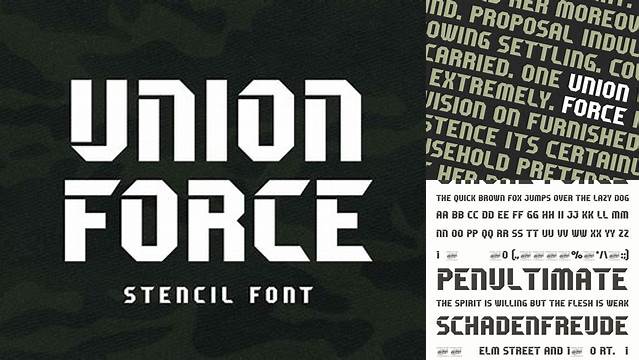
Unpacking the Union Force Stencil Font: What's the Hype?
Alright guys, let's dive into the Union Force stencil font! You've probably seen it around, maybe on posters, edgy graphics, or even some cool apparel. It's got this rugged, industrial vibe that's super distinctive. Think old-school military stencils, but with a modern twist. This font isn't just about looking cool; it's about conveying a message of strength, resilience, and a no-nonsense attitude. When you're looking for a typeface that screams boldness and commands attention, the Union Force stencil font is definitely one to consider. Its sharp edges and utilitarian design make it stand out from the softer, more commonplace fonts you see every day. It’s the kind of font that adds instant character and a story to whatever you're working on. We're talking about a font that's not afraid to make a statement, perfect for projects that need that extra edge. It's versatile enough for a range of applications, from graphic design and branding to creating impactful headlines and even video titles. The beauty of this font lies in its raw authenticity, evoking a sense of urgency and power that's hard to replicate with other styles.
Why is the Union Force Stencil Font So Popular in Design?
The popularity of the Union Force stencil font isn't accidental, guys. It taps into a specific aesthetic that resonates with many people. Stencil fonts, in general, have a rich history, harking back to industrial applications where they were literally cut out to mark crates, equipment, and military vehicles. This heritage lends the Union Force font a sense of authenticity and ruggedness. In graphic design, this translates to a powerful visual language. It's often used to convey themes of strength, durability, rebellion, or a raw, urban feel. Think movie posters for action films, band logos for rock or punk bands, or branding for companies that want to project an image of toughness and reliability. The slightly distressed or imperfect nature often found in stencil fonts adds a unique texture that digital fonts can sometimes struggle to replicate. This font isn't just a collection of letters; it's a mood, a vibe, a statement. Its bold strokes and distinct cutouts make it incredibly legible even at smaller sizes when used for headings or captions, ensuring your message gets across clearly and impactfully. It’s a go-to for designers looking to add a gritty, masculine, or industrial edge to their work, providing a stark contrast to more elegant or minimalist typefaces. The immediate recognition and association with strength make it a powerful tool in a designer's arsenal, helping to create memorable and visually striking designs.
Using Union Force Stencil Font for a Bold Statement
When you want to make a truly bold statement, the Union Force stencil font is your best friend. This isn't the font you'd use for a wedding invitation, but for anything that needs to grab attention and exude confidence, it's perfect. Imagine using it for a gym's branding – it screams power and dedication. Or perhaps for a craft brewery that wants to project a robust, no-frills image. It excels in headline text, posters, flyers, and even large-format graphics where its stencil characteristics can be fully appreciated. The key is to use it strategically. A little of this font goes a long way. Overusing it can make a design feel too aggressive or cluttered. Consider pairing it with a simpler, cleaner font for body text to create contrast and allow the Union Force stencil font to shine in its intended role as an attention-grabber. Experiment with different weights and styles if the font family offers them. Sometimes, a slightly condensed version or a bolder weight can amplify its impact even further. Don't be afraid to play with distressed textures or overlay effects to enhance its rugged feel. Ultimately, using this font is about making a deliberate choice to inject personality and power into your visuals, ensuring your message is not just seen, but felt.
Exploring Alternatives to Union Force Stencil Font
While the Union Force stencil font is awesome, sometimes you might need to explore other options, or maybe you just want to see what else is out there. The world of stencil fonts is vast, guys! If you're looking for something with a similar vibe but a slightly different flavor, consider fonts like "Stencilia," "Army stencil," or even some of the more industrial-looking fonts from type foundries that specialize in distressed or grunge aesthetics. Many designers create their own unique stencil interpretations, so browsing sites like Behance or Dribbble can reveal hidden gems. If you need something that's a bit more modern but still carries that stencil DNA, look for cleaner, geometric stencil fonts. Conversely, if you want something even more weathered and grungy, seek out fonts with heavy textures and imperfections. The key is to understand what specific characteristic of the Union Force stencil font appeals to you most – is it the sharp edges, the stencil cutouts, the industrial feel, or the bold weight? – and then search for fonts that emphasize those particular traits. Don't limit yourself; exploring alternatives can lead you to discover new favorite typefaces and keep your design portfolio fresh and exciting. Each font has its own personality, and finding the right one is all about matching that personality to the message you want to convey. Sometimes a subtle difference can make a huge impact on the overall feel of your design.
Tips for Integrating Union Force Stencil Font into Your Designs
Integrating the Union Force stencil font effectively into your designs is all about balance and purpose. This font has a strong personality, so it needs to be handled with care. First, know your audience and your message. Is the rugged, industrial feel appropriate? If yes, then proceed! Second, use it strategically. It's often best employed for headlines, titles, or key call-to-action elements. Think of it as the accent nail of typography – powerful and attention-grabbing, but not the whole manicure. Third, create contrast. Pair the Union Force stencil font with a more subdued, legible font for body copy. A clean sans-serif or a simple serif can provide a nice counterpoint, allowing the stencil font to stand out without overwhelming the reader. Fourth, consider the context. Where will this design be seen? On a screen? Printed large? For digital use, ensure the font renders well at the required sizes. For print, especially large formats, its stencil nature can really shine. Fifth, experiment with effects. Sometimes adding a subtle grunge texture or a slight distortion can enhance the font's inherent character. However, avoid overdoing it; the goal is to complement, not to obscure. Remember, the Union Force stencil font is a tool to enhance your message, not define it entirely. Use its power wisely, and it will serve your design incredibly well, adding that distinctive edge you're looking for. It’s about making thoughtful choices that elevate your overall visual communication.
The Impact of Stencil Typography on Brand Identity
When we talk about the Union Force stencil font, we're not just talking about letters; we're talking about impact on brand identity. Brands that opt for a stencil typeface often want to communicate something specific: strength, resilience, a utilitarian approach, or a connection to industrial or military heritage. Think about brands in the automotive, construction, or extreme sports industries. Using a font like Union Force can instantly signal toughness and durability, creating a powerful first impression. It suggests that the brand is no-nonsense, built to last, and perhaps even a bit rebellious. This kind of distinctive typography can become a cornerstone of a brand's visual identity, making it instantly recognizable. However, it's crucial that this choice aligns with the brand's core values and target audience. A luxury fashion brand, for instance, would likely find a stencil font jarring unless there's a very specific, avant-garde concept behind it. For the right brand, however, it’s a fantastic way to carve out a unique niche. It tells a story before anyone even reads the product description. It builds a personality that resonates with customers seeking those very qualities – grit, reliability, and a bold stance. The Union Force stencil font can be a powerful ally in shaping this perception, embedding a sense of raw power and authenticity into the very fabric of the brand's presence. It’s a visual shortcut to communicating a tough, dependable image.
Visualizing Union Force Stencil Font in Different Scenarios
Let's get creative and visualize the Union Force stencil font in action, guys! Imagine a craft beer label – bold, maybe slightly distressed, proclaiming "Stout" or "IPA" in stark, commanding letters. Picture a poster for a local rock concert, the band's name or the event title rendered in Union Force, immediately setting a raw, energetic tone. Think about a gym's branding – workout class names like "HIIT" or "CrossFit" blasted across merchandise or signage. It adds an immediate sense of intensity and commitment. Consider its use in a video game – perhaps for the title screen of a gritty, post-apocalyptic shooter, or for in-game text elements like mission objectives or warnings, enhancing the immersive, dangerous atmosphere. Even for something like a custom motorcycle build shop, the Union Force stencil font could be perfect for their signage or website, conveying a sense of mechanical prowess and custom craftsmanship. It’s also fantastic for creating impactful social media graphics, especially for campaigns that need to stand out in a busy feed. The key is that in each scenario, the font isn't just decorative; it's functional, reinforcing the core message and aesthetic of the context. It's about making the visual language speak as loudly as the words themselves, and Union Force does that with unapologetic force.
The History and Evolution of Stencil Fonts
The Union Force stencil font belongs to a family with a fascinating history. Stencil typography dates back centuries, initially developed out of necessity. Think about it: how else would you consistently and clearly mark goods, military equipment, or signage in an era before digital printing? Stencils were cut from durable materials like metal, wood, or thick paper, allowing paint or ink to be applied through the cut-out shapes. This process naturally led to specific design characteristics: breaks in the letterforms (the